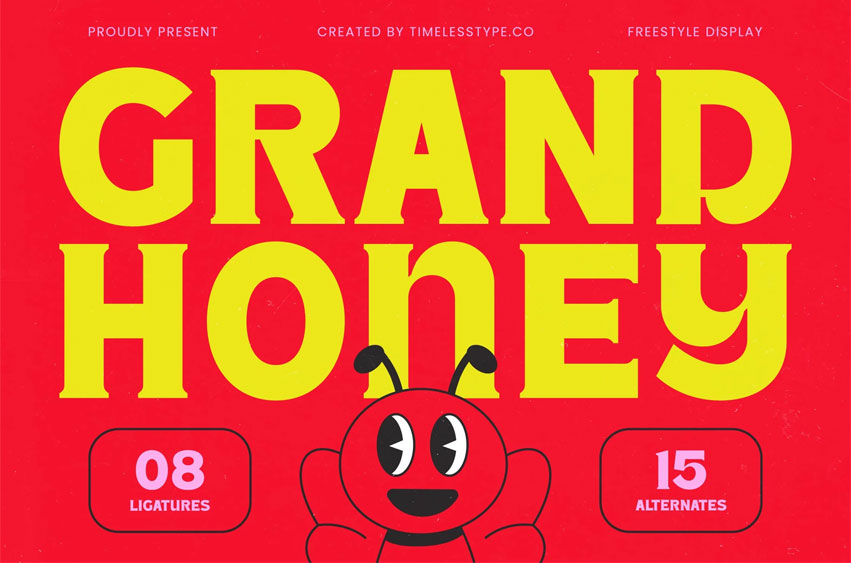
Grand Honey Font is a vibrant freestyle display font designed to bring bold energy and playful charm into your projects. With chunky shapes, smooth flow, and a fun retro-inspired personality, this font instantly grabs attention and delivers an upbeat visual impact. Perfect for children’s products, cheerful branding, posters, café menus, snack packaging, and any design that needs a burst of joyful character.
Equipped with 08 ligatures and 15 alternates, Grand Honey offers creative flexibility while maintaining a strong and expressive look. Its fun curves and friendly structure make it ideal for modern creatives aiming to build memorable and delightful visuals.
- Uppercase and lowercase
- Numbering and Punctuation